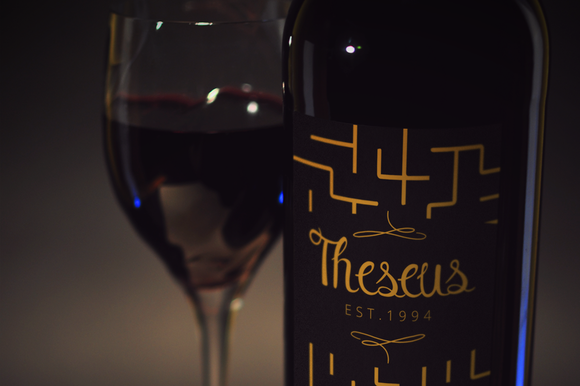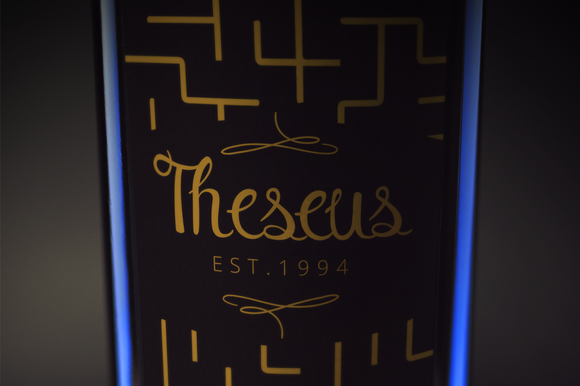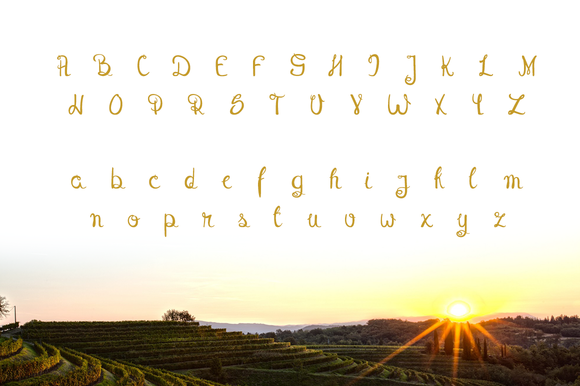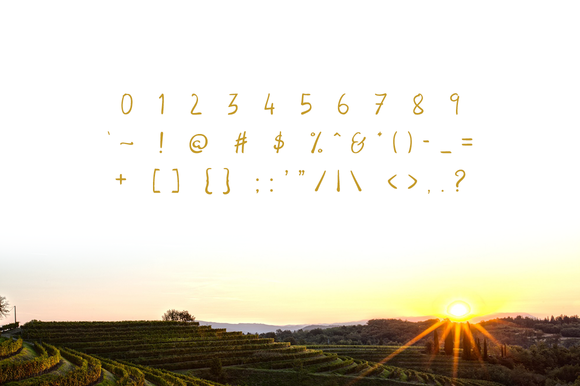
Theseus Font
About Theseus Font
Theseus is a handmade font with a luxury touch.
You will get this font with uppercases, lowercases, and the most used glyphs.